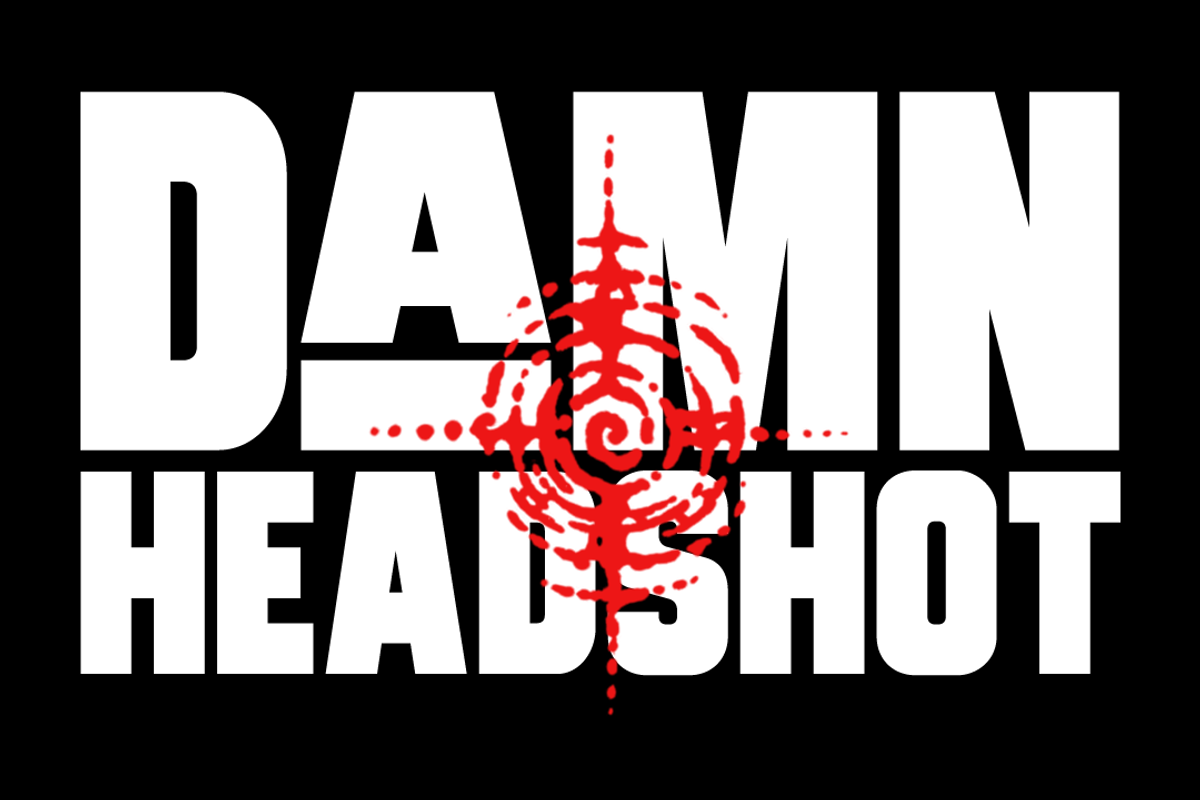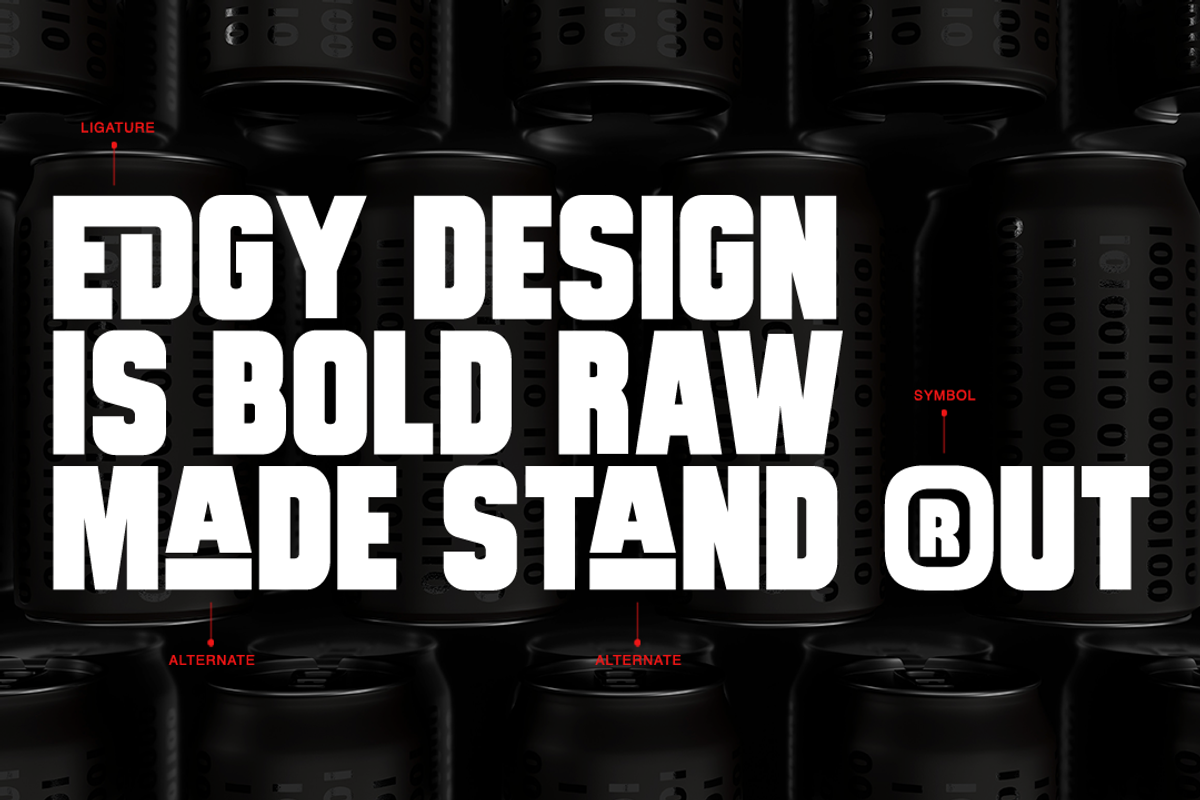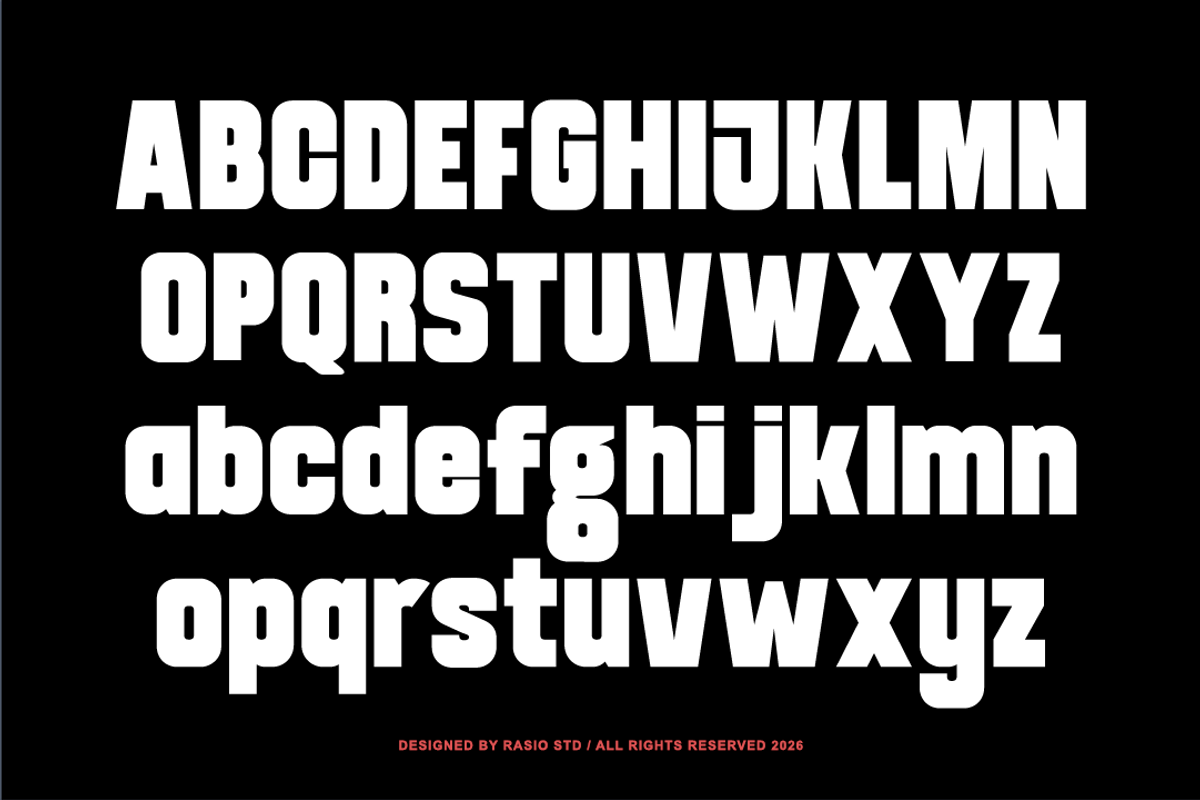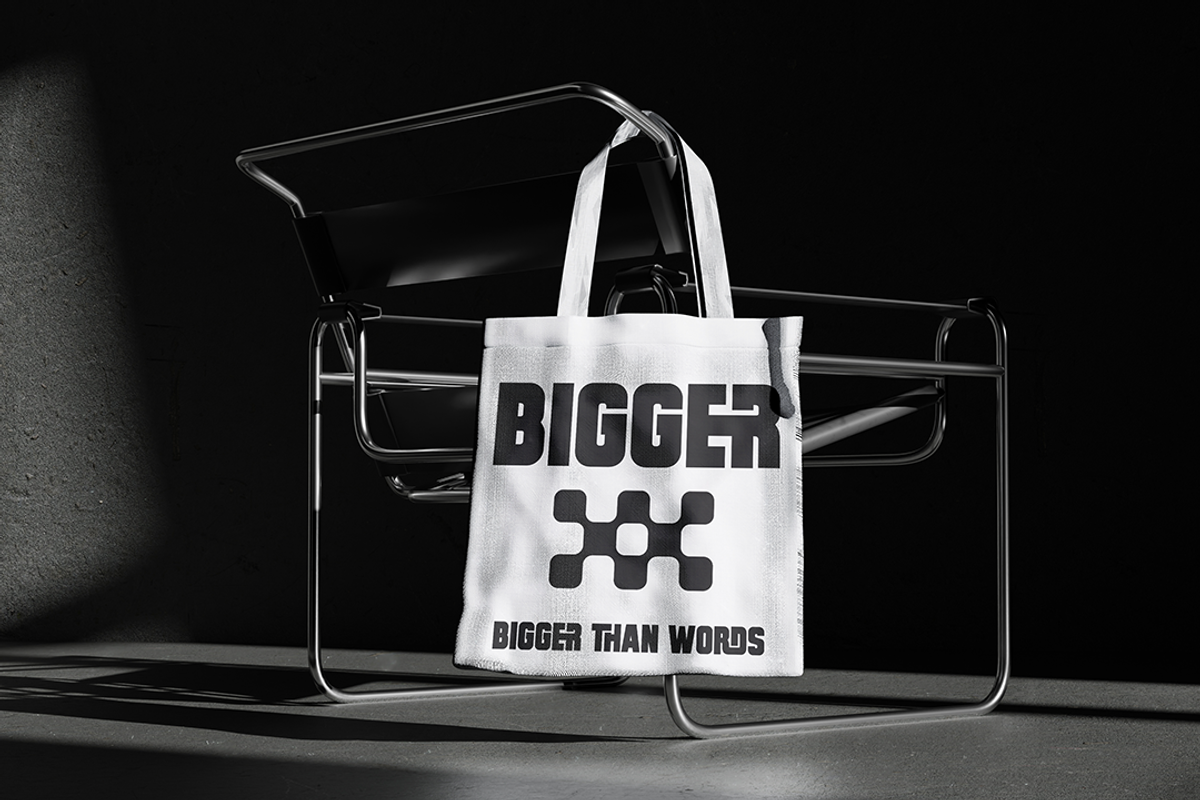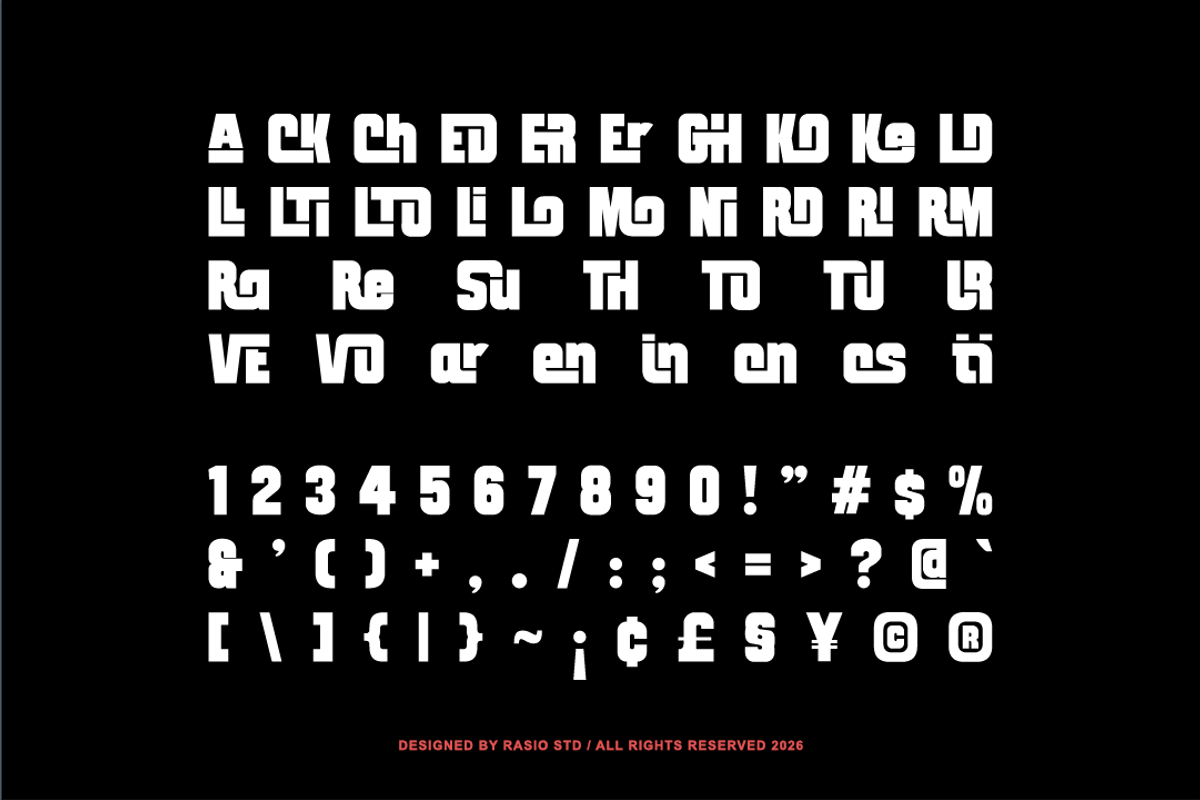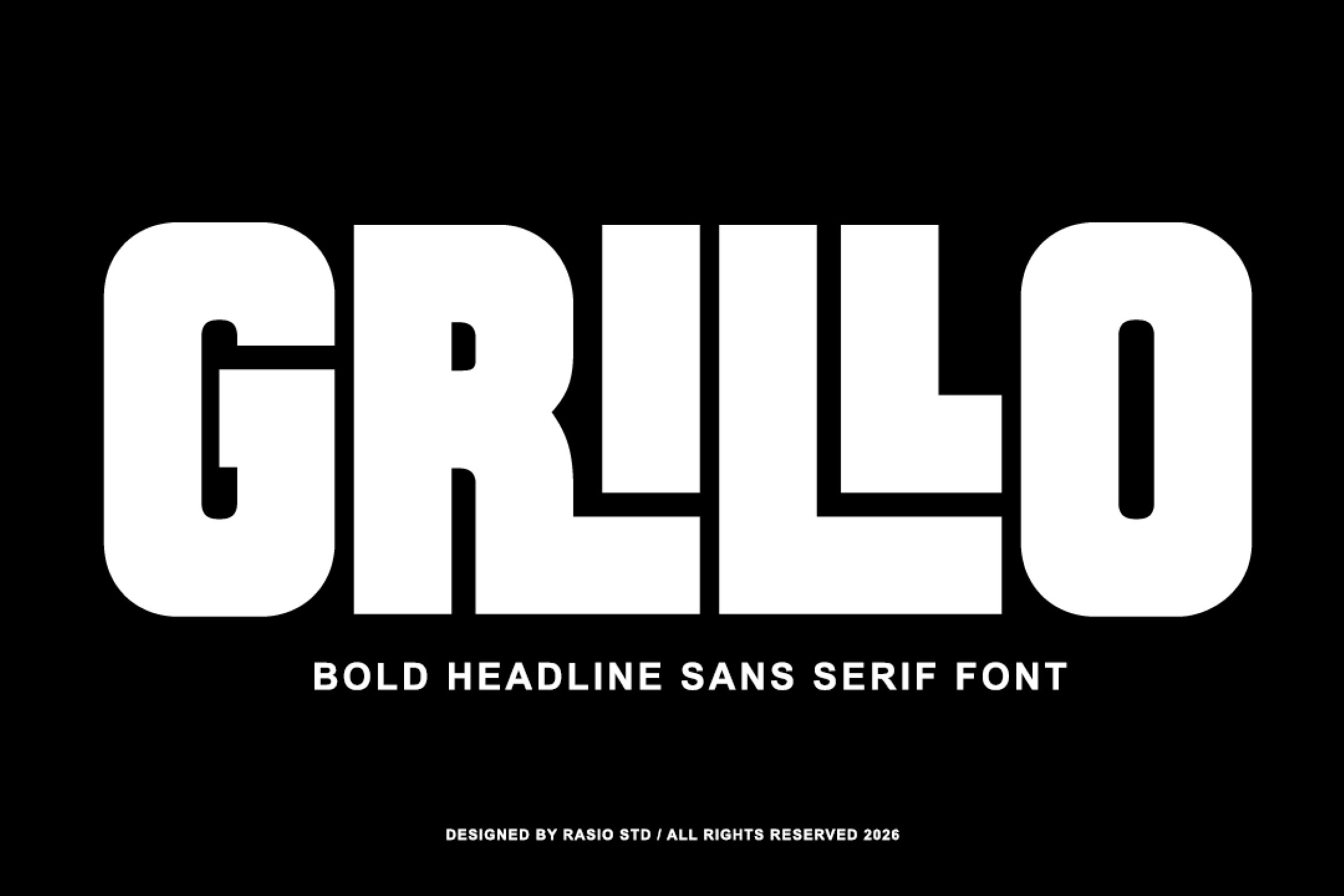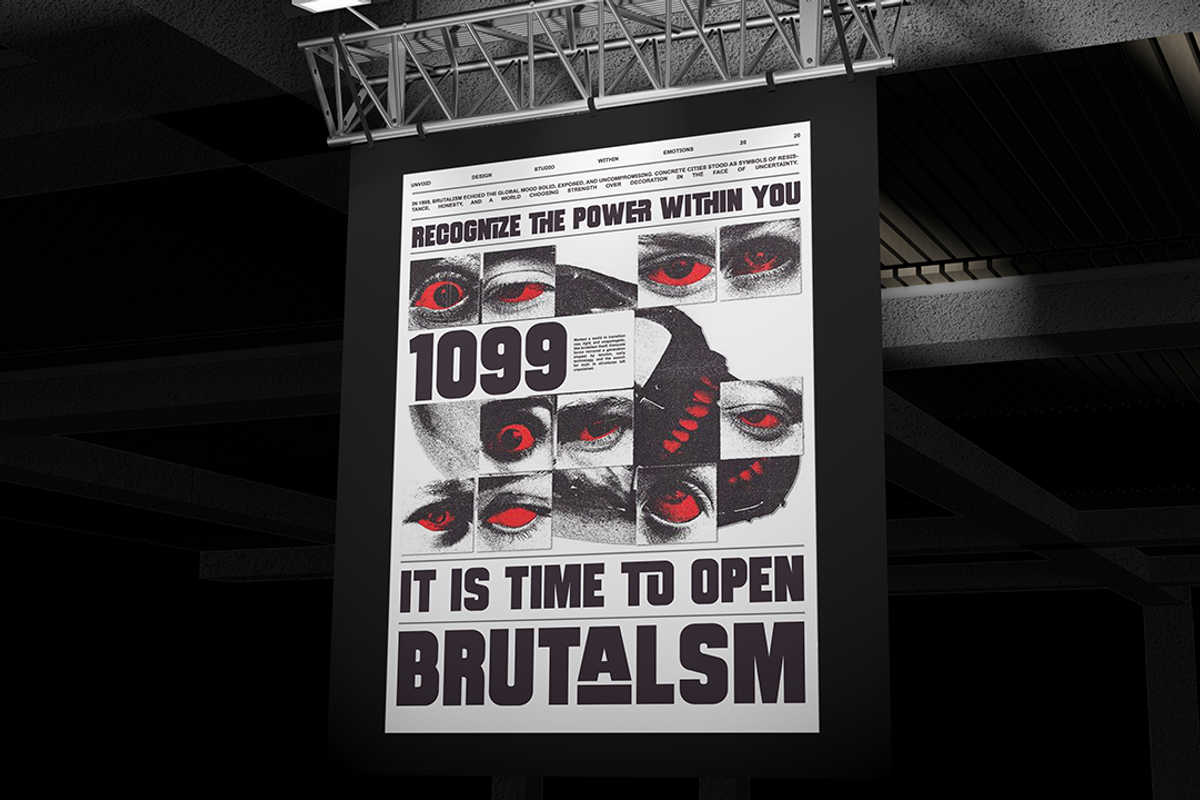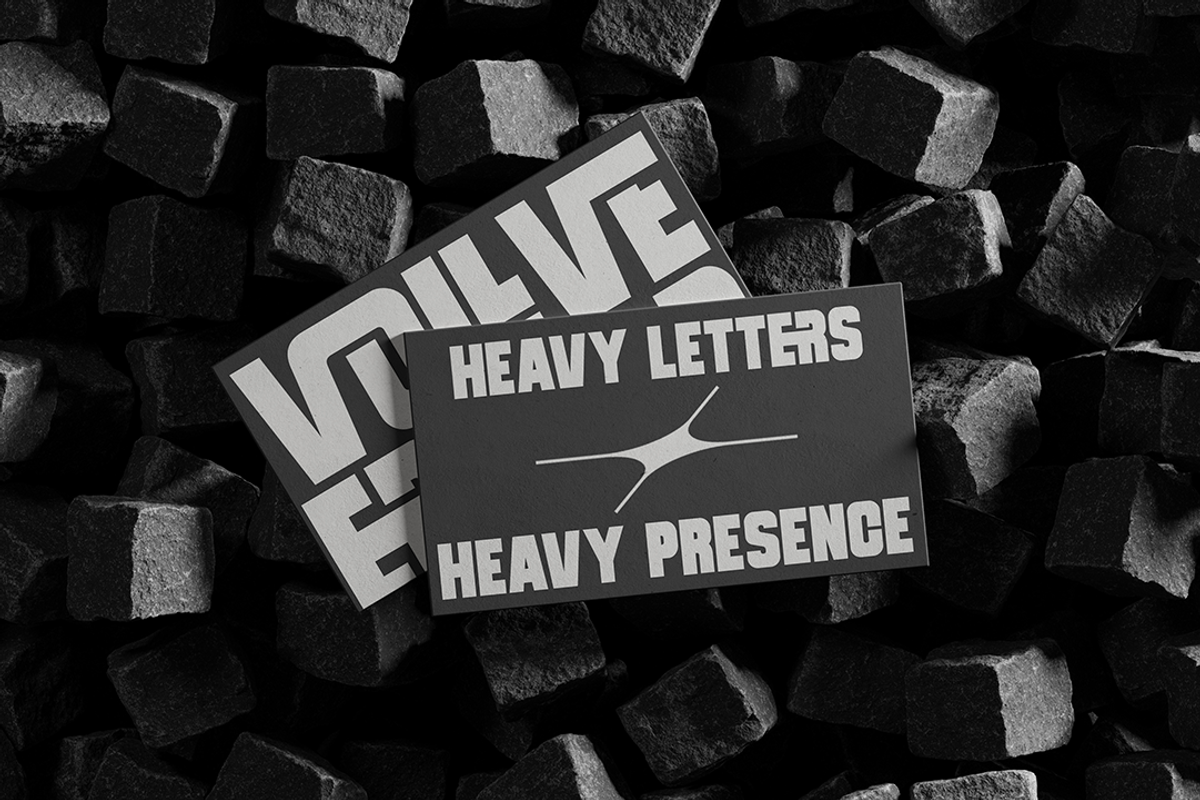
Grillo Bold Headline Sans Serif Font
Grillo is a bold headline sans serif font designed with powerful condensed letterforms and strong geometric construction. The thick strokes and compact structure create a commanding visual presence that instantly captures attention in large display settings. This typeface includes uppercase, lowercase, numerals, punctuation, and multilingual support, making it suitable for modern graphic design projects.
This font is highly relevant for modern design projects that require bold and commanding typography. It works well for posters, advertising campaigns, branding systems, editorial headlines, album covers, sports graphics, and strong marketing visuals. The condensed bold structure helps maximize visual impact while maintaining clear readability in large display compositions.
- Bold condensed letterforms built for strong headline impact
- Solid geometric structure with thick, powerful strokes
- Compact proportions that maximize space in large titles
- Consistent stroke weight for stable and confident typography
- Tight spacing optimized for striking display layouts
- Bold branding and impactful logo design
- Eye-catching posters, headlines, and advertising graphics
- Sports, gaming, and action-themed visual design
- Album covers, event posters, and promotional materials
- Social media graphics and strong marketing campaigns
Command attention with Grillo, a bold headline font built for striking typography